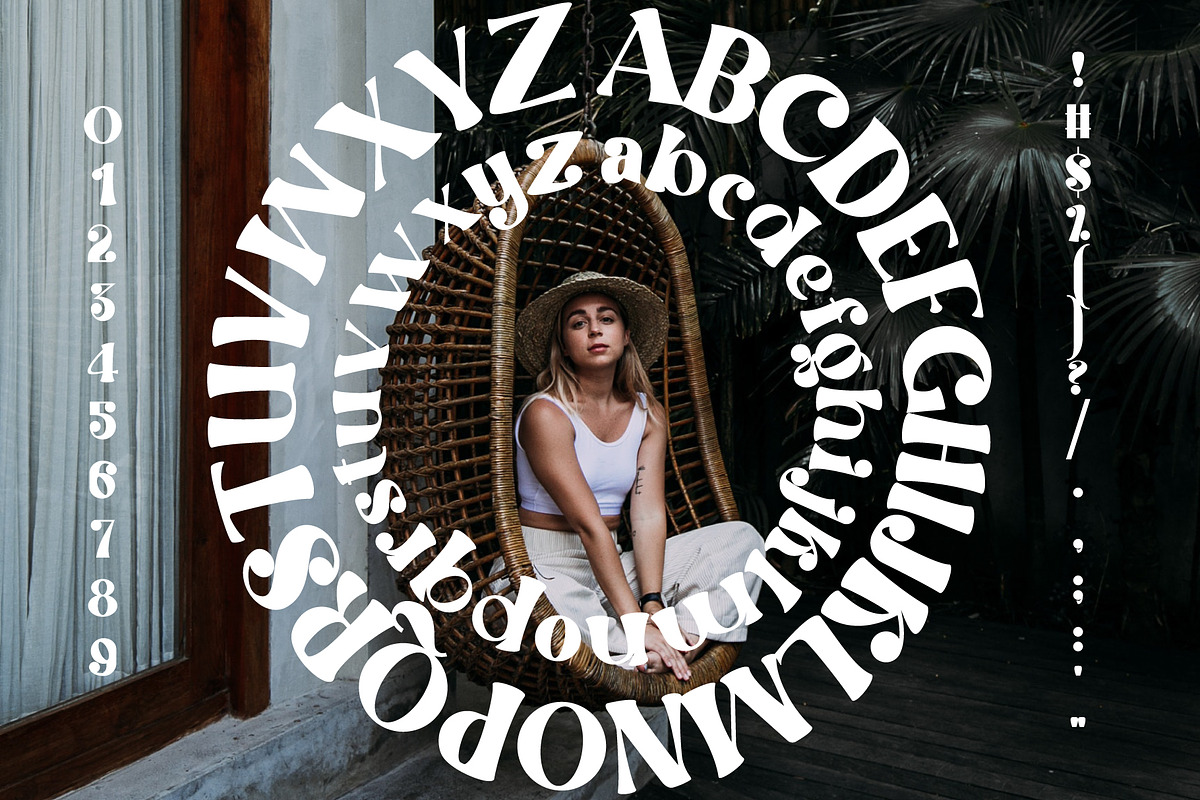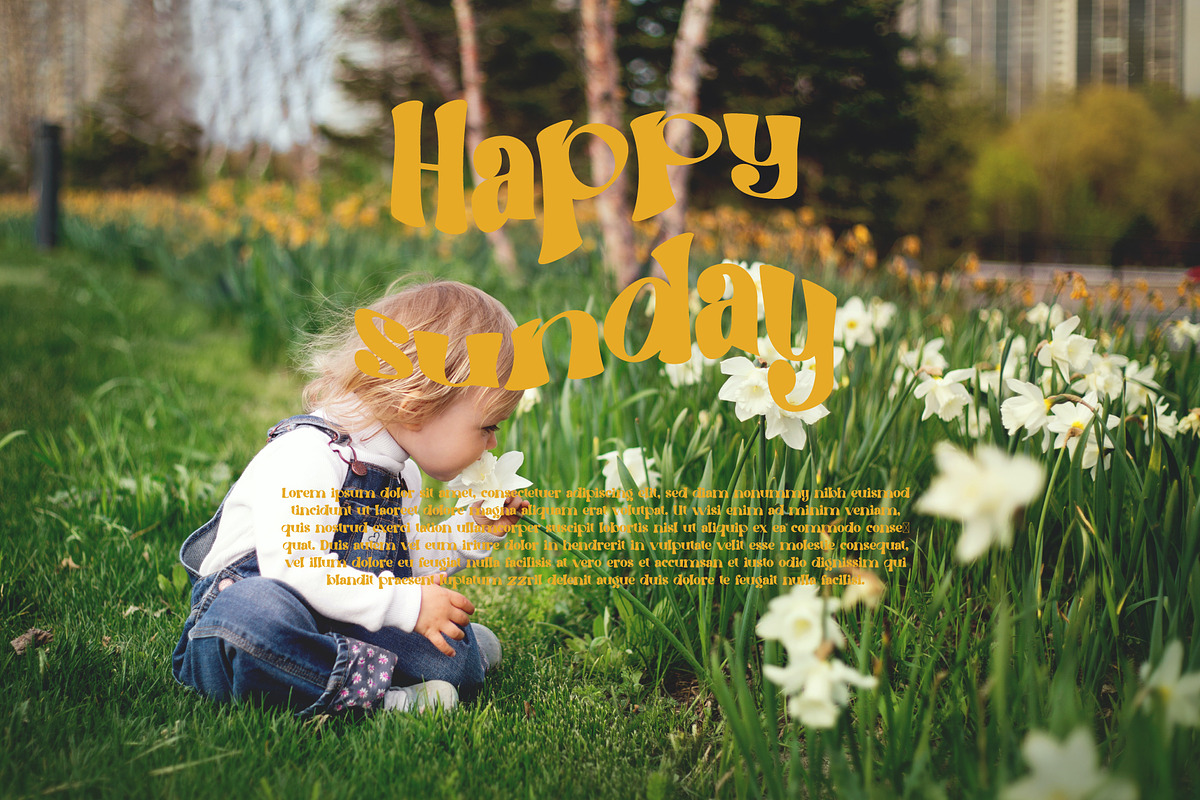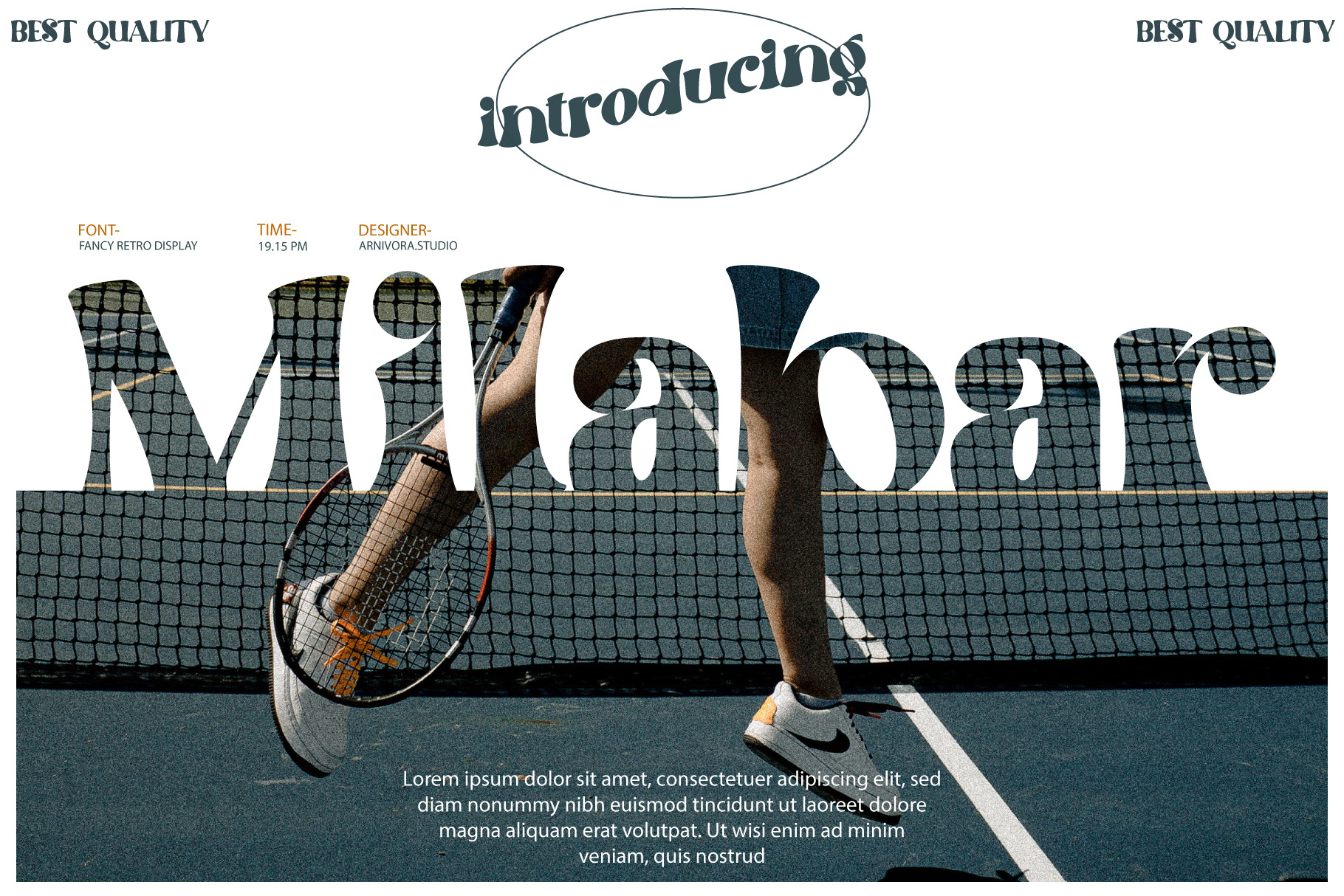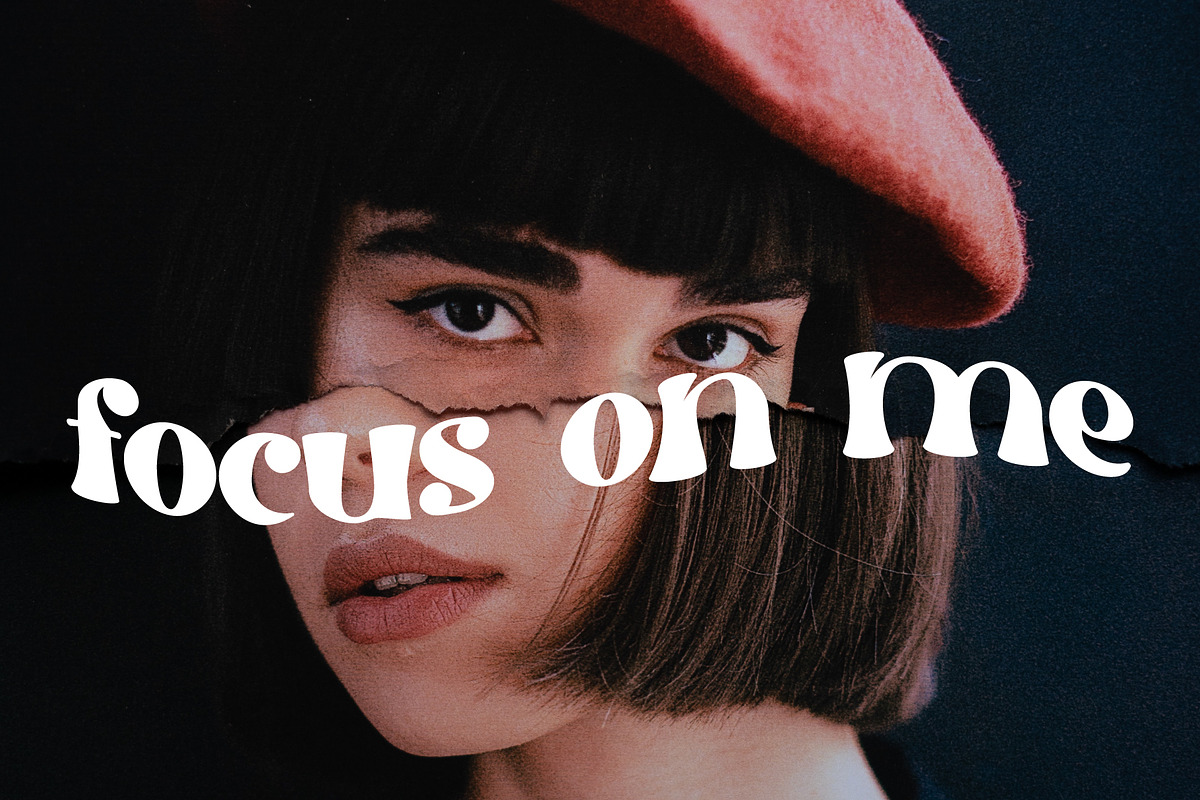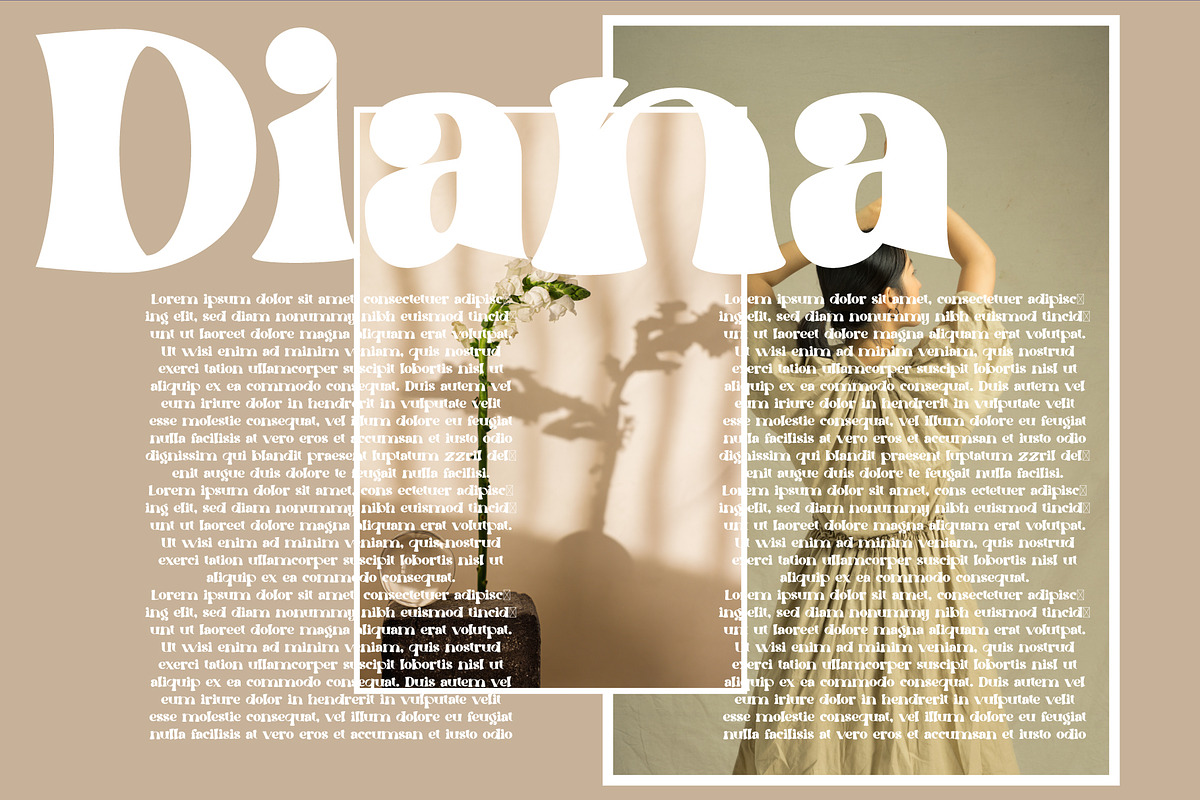
Milabar - Serif Font
Introducing Milabar, an elegant, luxury, and beauty serif font. Its unique and lovely feel. So perfect for you who needs a typeface for logo designs, magazine, social media, brochure, and many more.